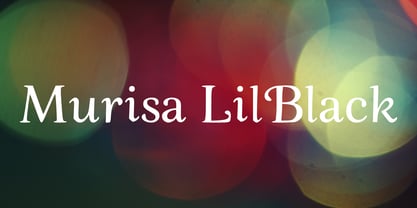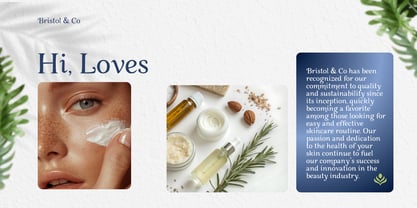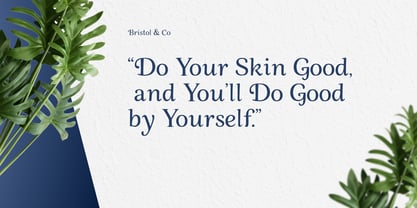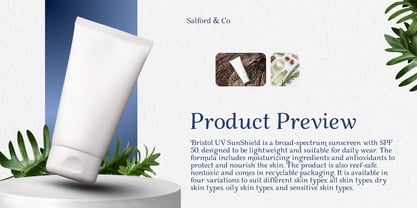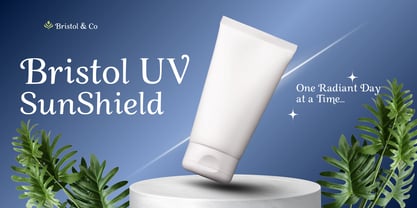
Murisa Lilblack
by Murisa Studio
The Murisa Lilblack Font Family was designed by Lili Sadili and published by Murisa Studio. Murisa Lilblack contains 2 styles and family package options. More about this family
✨ Murisa LilBlack – A Bold Statement in Typography Murisa LilBlack is not just a font—it’s a masterpiece of calligraphic elegance fused with timeless serif sophistication. Designed with meticulous detail, every curve and stroke radiates confidence, making it the perfect choice for brands, creatives, and visionaries who demand exclusivity. 💎 Luxury in Every Letter Crafted to captivate, Murisa LilBlack transforms ordinary text into extraordinary art. Its refined balance of sharp serifs and flowing calligraphic forms ensures your words stand out with prestige and authority. 🌍 Global Reach, Eastern European Support With full support for Eastern European languages, Murisa LilBlack empowers designers to communicate seamlessly across borders while maintaining its distinctive charm. 🔥 Unforgettable Impact Whether gracing high-end editorials, premium packaging, or elite digital campaigns, Murisa LilBlack delivers a visual presence that commands attention and elevates any project into the realm of luxury
Designers: Lili Sadili
Foundry: Murisa Studio